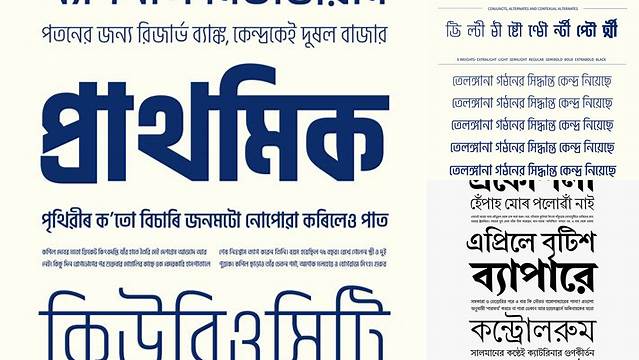
Hey guys! Ever felt like your PixelLab projects needed a touch of authentic Bengali flavor? Well, you're in luck! Today, we're diving deep into the world of Akhand Bengali font, a stunning typeface that can seriously elevate your designs. And the best part? You can snag it for free and use it directly in PixelLab. Let’s get started!
1. What is Akhand Bengali Font?
Alright, so what exactly is Akhand Bengali font? Simply put, it’s a beautifully designed typeface that captures the essence of the Bengali script. It’s known for its clean lines, balanced letterforms, and overall readability. This makes it perfect for a wide range of projects, from creating eye-catching social media graphics to designing professional-looking presentations. The Akhand Bengali font family is a versatile choice that provides a modern, yet traditional look, suitable for various design needs. Its clarity ensures that your message is conveyed effectively, no matter the medium. Using Akhand Bengali can instantly add a touch of elegance and cultural relevance to your projects. Furthermore, the consistent design across different weights and styles within the family makes it a reliable option for maintaining visual harmony. So, whether you're working on a personal project or a professional design, Akhand Bengali font can be a valuable asset.
2. Why Use Akhand Bengali Font in PixelLab?
Why should you bother using the Akhand Bengali font in PixelLab? Well, if you're creating content for a Bengali-speaking audience, it's a no-brainer. Using a native font adds authenticity and makes your designs more relatable. But even if you're not targeting Bengalis specifically, this font can add a unique and sophisticated touch to your work. PixelLab is a fantastic mobile app for graphic design, but it has some limitations in terms of font selection. Adding Akhand Bengali allows you to break free from those constraints and explore new creative possibilities. Plus, it's free, so why not give it a shot? The font's distinct character can help you create designs that stand out from the crowd. Moreover, using a high-quality font like Akhand Bengali enhances the overall visual appeal of your projects, making them look more professional and polished. Experimenting with different fonts can also spark new ideas and approaches to your design process. Therefore, incorporating Akhand Bengali into your PixelLab toolkit can significantly expand your creative horizons.
6. Creative Uses of Akhand Bengali Font in PixelLab Designs
Now that you've got the Akhand Bengali font up and running in PixelLab, let's brainstorm some creative ways to use it! If you’re designing social media posts for Bengali holidays or festivals, this font will add a touch of authenticity. Use it in posters, banners, or even just to add text overlays to your photos. Another idea is to use it for creating logos or branding materials. The font's unique style can help your brand stand out. You could also use it to design invitations for weddings or other special events. Or, if you're creating educational content, use it to highlight important information or create visually appealing diagrams. The possibilities are endless! Remember to experiment with different font sizes, colors, and styles to create unique and eye-catching designs. Try pairing the Akhand Bengali font with other fonts to create a visually interesting contrast. And don't be afraid to break the rules and try something unexpected. The most important thing is to have fun and let your creativity flow. With Akhand Bengali font in your toolkit, you'll be able to create stunning designs that capture the essence of Bengali culture.
7. Exploring Different Styles and Weights of Akhand Bengali Font
The Akhand Bengali font often comes in various styles and weights, each offering a unique aesthetic. Experimenting with these variations can significantly enhance your designs. Different weights, such as light, regular, bold, and black, can create different levels of emphasis and visual impact. Use heavier weights for headlines and important text, and lighter weights for body text or captions. Some variations might include italic or oblique styles, which can add a touch of elegance or dynamism to your designs. These are particularly useful for highlighting quotes or adding visual interest. Additionally, some font families offer condensed or expanded styles, which can be used to fit text into tight spaces or create a more dramatic effect. By exploring these different styles and weights, you can create a more nuanced and sophisticated design. Think about how each variation affects the overall tone and message of your design. Don't be afraid to mix and match different styles to create visual contrast and hierarchy. With a little experimentation, you'll discover how to effectively use the different styles and weights of Akhand Bengali font to create stunning designs.
8. Combining Akhand Bengali Font with Other Fonts in PixelLab
Mixing fonts can be tricky, but when done right, it can create a visually appealing and dynamic design. When combining the Akhand Bengali font with other fonts in PixelLab, it's important to choose fonts that complement each other. Look for fonts with similar x-heights or stroke widths to create a sense of harmony. A good rule of thumb is to pair a decorative font like Akhand Bengali with a more simple and neutral font. This will prevent your design from looking too cluttered or overwhelming. For example, you could pair Akhand Bengali with a sans-serif font like Roboto or Open Sans. Or, you could pair it with a serif font like Times New Roman or Georgia. Experiment with different combinations to see what works best for your design. Pay attention to the contrast between the fonts. If the fonts are too similar, they might not stand out enough. On the other hand, if the fonts are too different, they might clash. The goal is to find a balance that creates visual interest without being jarring. By carefully selecting and combining fonts, you can create a design that is both visually appealing and easy to read. Remember to have fun and experiment with different options until you find the perfect combination.
9. Optimizing Text Settings for Akhand Bengali Font in PixelLab
To get the most out of the Akhand Bengali font in PixelLab, it's important to optimize your text settings. This includes adjusting the font size, line spacing, letter spacing, and alignment. The optimal font size will depend on the size of your design and the amount of text you're using. Make sure the text is large enough to be easily readable, but not so large that it overwhelms the design. Line spacing, also known as leading, refers to the vertical space between lines of text. Adjusting the line spacing can improve readability and create a more visually appealing layout. Letter spacing, also known as tracking, refers to the horizontal space between letters. Increasing the letter spacing can make the text look more open and airy, while decreasing it can make the text look more dense and compact. Alignment refers to the way the text is positioned within the text box. You can align the text to the left, right, center, or justify it. Choose the alignment that works best for your design. By carefully adjusting these text settings, you can create a design that is both visually appealing and easy to read. Remember to experiment with different settings until you find the perfect combination for your Akhand Bengali font.
30. Designing Eid Mubarak Greetings with Akhand Bengali Font
Spread festive cheer with beautifully designed Eid Mubarak greetings using the Akhand Bengali font. Eid is a time for celebration, gratitude, and togetherness in the Muslim community. Using Akhand Bengali font to craft heartfelt Eid Mubarak messages can add a touch of elegance and cultural sensitivity. Incorporate traditional Islamic patterns, crescent moon symbols, or images of mosques to enhance the card's cultural significance. Choose colors that evoke a sense of peace, joy, and spirituality. Design greetings that convey blessings, good wishes, and warm sentiments to loved ones. By creating stunning Eid Mubarak greetings with Akhand Bengali font, you can share the spirit of this joyous occasion and strengthen bonds with family and friends.